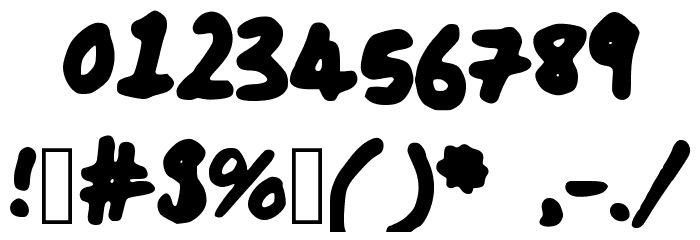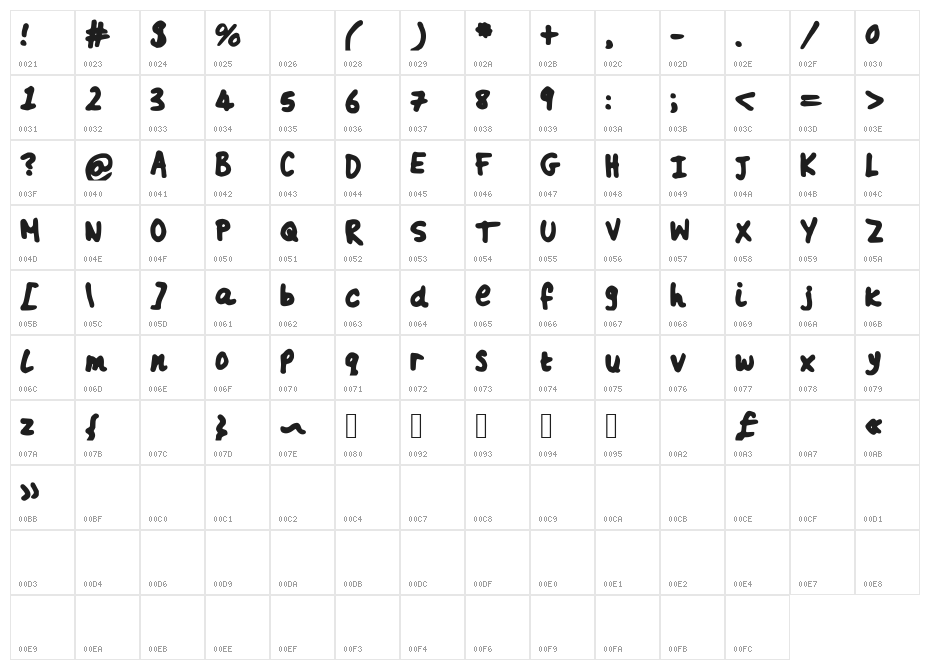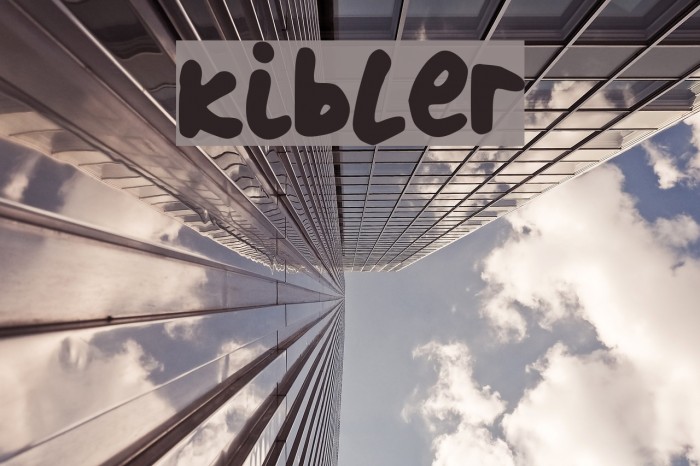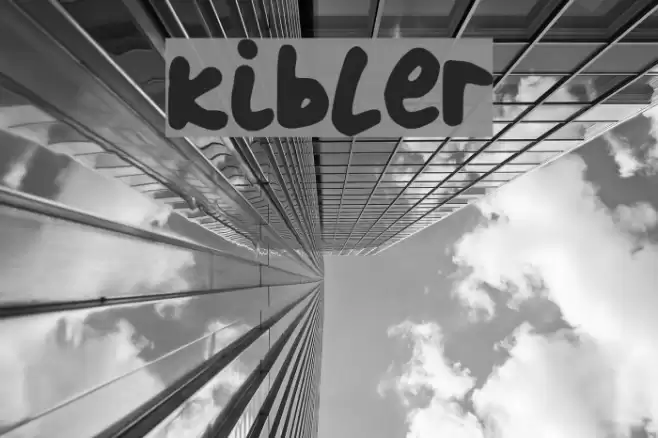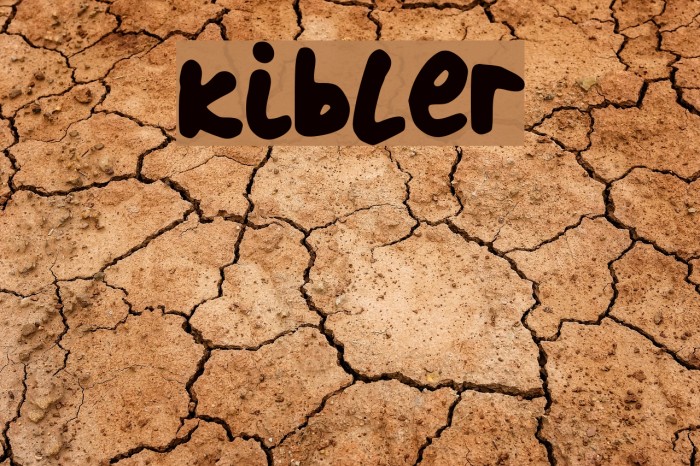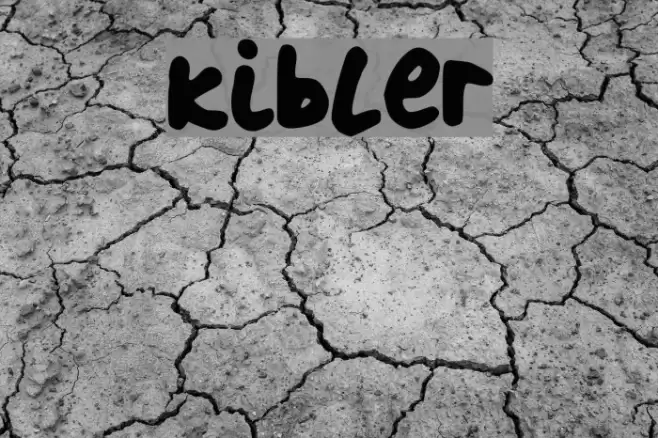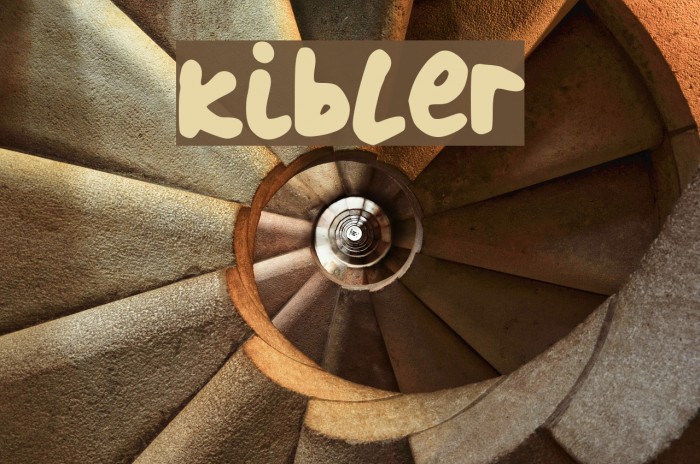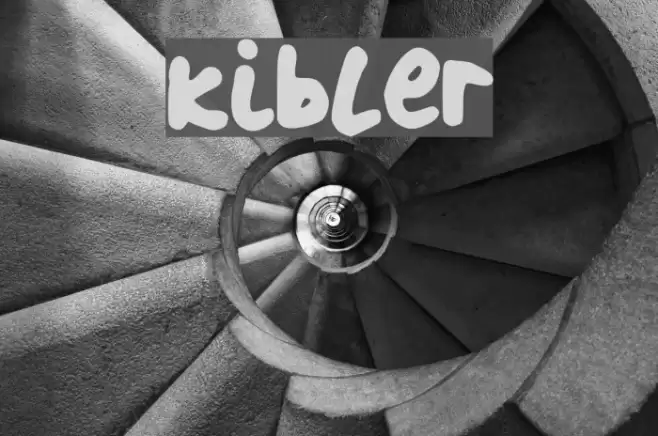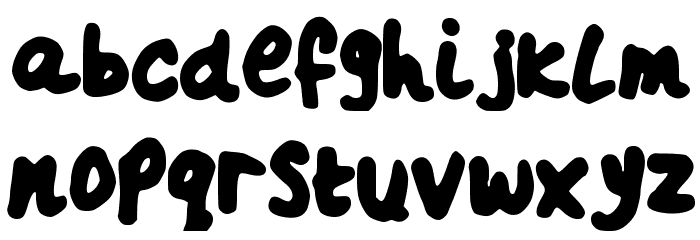
kibler Font
kibler Description
This font exhibits a playful and bold style with a handwritten appearance. The characters are rounded and slightly irregular, giving them a casual and informal look. The uppercase and lowercase letters maintain a consistent weight, contributing to a cohesive visual flow. The numbers and special characters follow the same design principles, ensuring uniformity across all glyphs. The font's thick strokes and lack of sharp edges create a friendly and approachable feel, making it suitable for projects that require a touch of whimsy and creativity.
| Proposed Projects | Ideal for children's books, playful branding, casual invitations, and creative posters. |